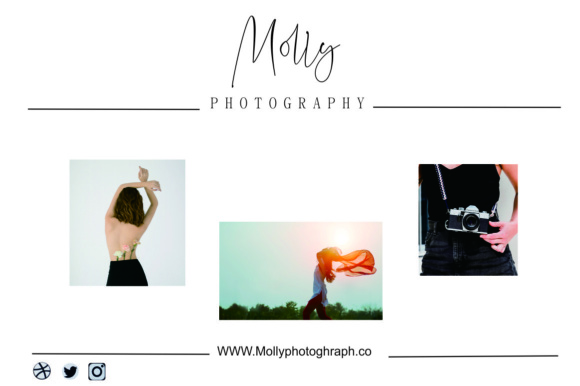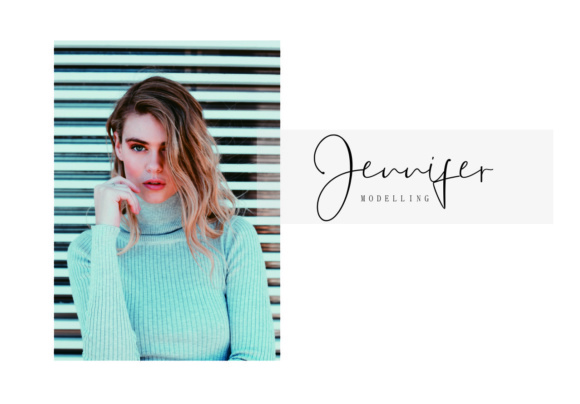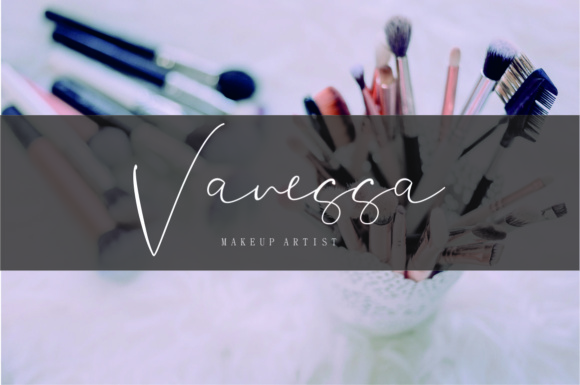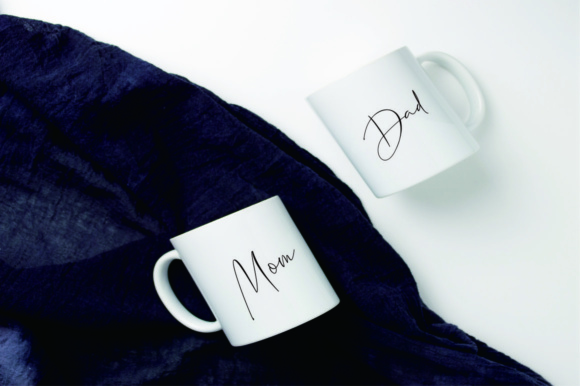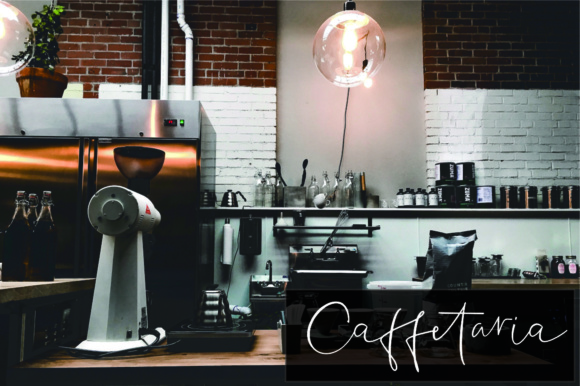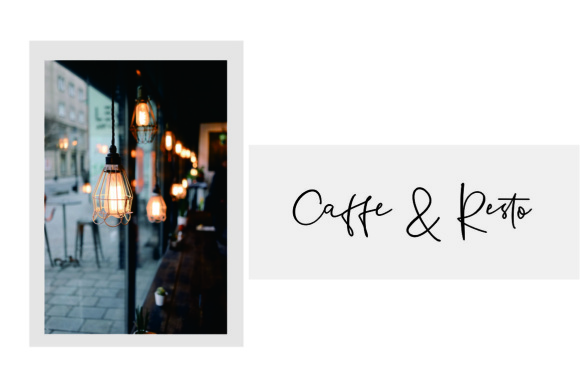
Introduction to Jannet Font
Have you ever stared at a blank canvas, waiting for the perfect font to bring your creative project to life? That’s exactly where many designers find themselves, searching for the ideal typography to elevate their work. For those seeking a high-quality, elegant signature font, look no further than the Jannet Font.
With its passion-driven creation and meticulous attention to detail, the Jannet Font is an invaluable resource for designers seeking to add a touch of sophistication to their designs. Whether you’re working on a logo, magazine, poster, brochure, or business card, this font is sure to make a lasting impression. Plus, with its transparent background, you can easily integrate it into any design project, making it a must-have in your design arsenal.
Key Features of Jannet Font
- Unique, modern font style with a transparent background, perfect for various design applications.
- Includes a comprehensive set of characters, including uppercase and lowercase letters, numbers, and punctuation marks.
- Optimized for high-resolution displays, with a resolution of 300 DPI for crisp and clear text rendering.
- Perfect for use in graphic design, web design, and digital art projects, offering a modern and stylish look.
Honest Review: Jannet Font
I recently stumbled upon the Jannet Font and was excited to give it a try for my next creative project. As a designer, I’m always on the lookout for high-quality design resources to elevate my work.
What works well: ✨ The Jannet Font is incredibly versatile and can be used for a variety of projects, from logos to headings. The font’s unique design and stylish look make it perfect for creating eye-catching graphics. The free download option is also a major plus, making it accessible to designers of all levels.
One of the standout features of the Jannet Font is its transparent background, which allows for seamless integration with any design. This feature is particularly useful when working on complex designs or layered graphics.
- Perfect for logos, headings, and graphics
Limitations: ⚠️ While the Jannet Font is a great addition to any designer’s toolkit, I did find that it can be a bit challenging to use in smaller font sizes. The font’s unique design can sometimes make it difficult to read, especially in tight spaces.
Overall impression: I’m thoroughly impressed with the Jannet Font and would highly recommend it to any designer looking for a high-quality design resource. While it may have some limitations, the benefits far outweigh the drawbacks.
Tips for Getting the Most Out of Jannet Font
To get the most out of the Jannet Font, use it on a transparent background for a clean and modern look. Experiment with different font sizes, colors, and combinations to create unique and creative compositions.
The Jannet Font is perfect for various design projects, including:
- Blogging and content creation
- Marketing materials and social media posts
- Infographics and data visualization